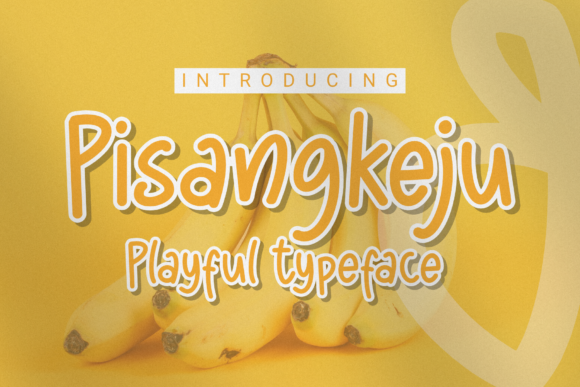
Step into the world of Pisangkeju, a playful and captivating display font that ignites your creativity and brings your designs to life. Crafted by the talented DUMADI, this typeface embodies the essence of joy and informality, making it the perfect choice for projects that demand a touch of whimsy and charm.
With its playful curves and energetic strokes, Pisangkeju dances across your designs, evoking a sense of fun and lightheartedness. Its casual style lends itself effortlessly to logos, social media graphics, and branding, while its versatility shines in content creation, advertising, and product design.
Imagine your words taking on a life of their own as they dance across the page in Pisangkeju's lively rhythm. Let your quotes and headers burst with personality, capturing the attention of your audience and leaving a lasting impression.
Create eye-catching posters and merchandise that radiate joy and playfulness. Let Pisangkeju be your muse as you craft designs that resonate with your audience on a deeper level.
From product packaging that exudes charm to social media content that sparks engagement, Pisangkeju is your go-to font for creating designs that speak volumes. Its playful nature invites interaction, making it an ideal choice for brands and content creators seeking to connect with their audience in a meaningful way.
Join the creative revolution and embrace Pisangkeju, the font that transforms your designs into captivating expressions of joy and fun. Let your imagination run wild as you explore the endless possibilities that await within this playful and inspiring typeface.